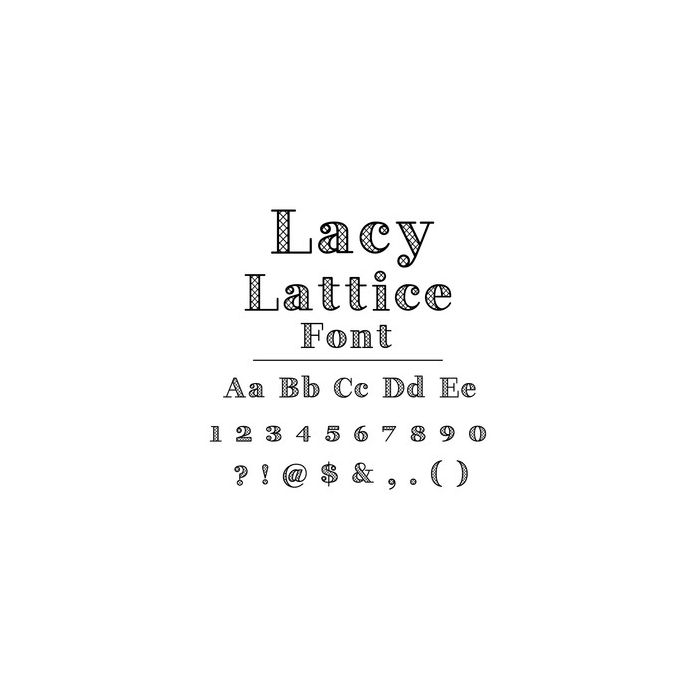
Lacy Lattice Font. Hand drawn font, including upper and lower case letters, numbers and glyphs. For more design ideas, coordinating designs & products and inspiration, please visit my blog http://www.sarahhurleyblog.com